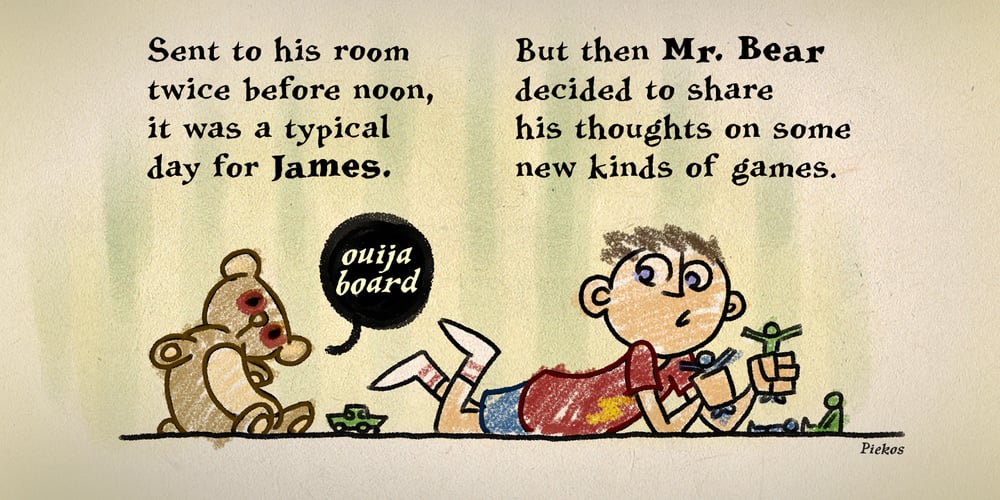
Inkcantation BB Font Family was designed by Nate Piekos and published by Blambot. Inkcantation BB contains 5 styles and family package options. Inkcantation BB is a hand-drawn serif font in three weights. With a whimsical yet Victorian sensibility, it features a bouncy baseline, extensive European characters, and Opentype autoligatures to swap out adjacent duplicate letters (like AA, ff, RR, etc.) Notes: A font family on MyFonts.com can contain an unlimited number of styles.